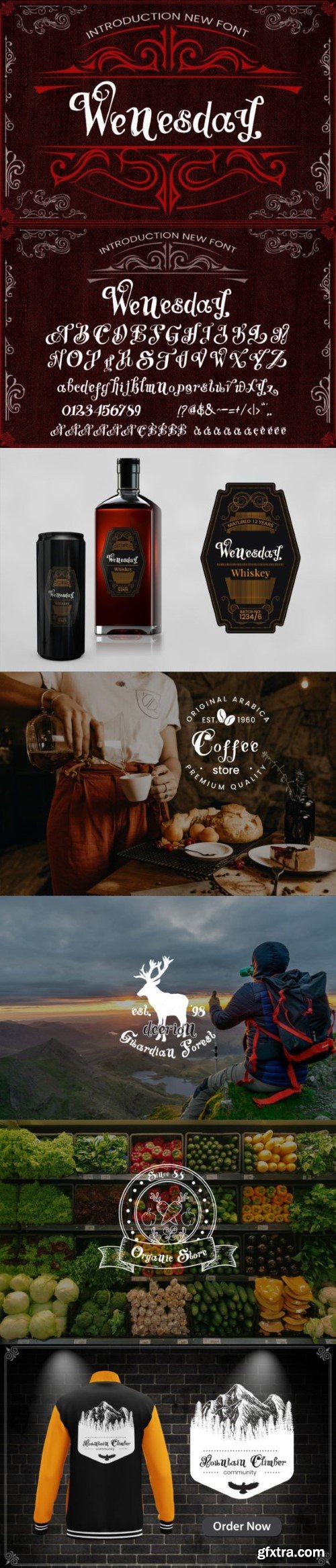
周三复古字体
Wenesday Vintage Font inspired by Retro Gothic lettering sign and art. It still looks bold and solid. It’s perfect for many different projects such as headlines, logotypes, apparel, invitations, labels, branding, packaging, advertising, etc.